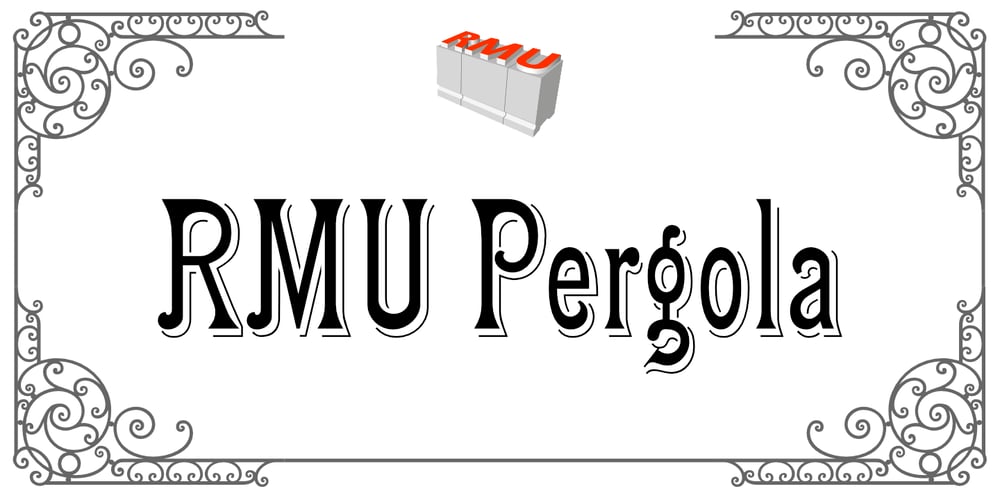
RMU Pergola
RMU Pergola font
RMU Pergola Font Family was designed by Ralph M. Unger and published by RMU. RMU Pergola contains 1 styles and family package options. RMU Pergola is a font design which was inspired by a late-19th century font of Georg Giesecke. To get access to all ligatures, it is recommended to activate both Standard and Discretionary Ligatures.